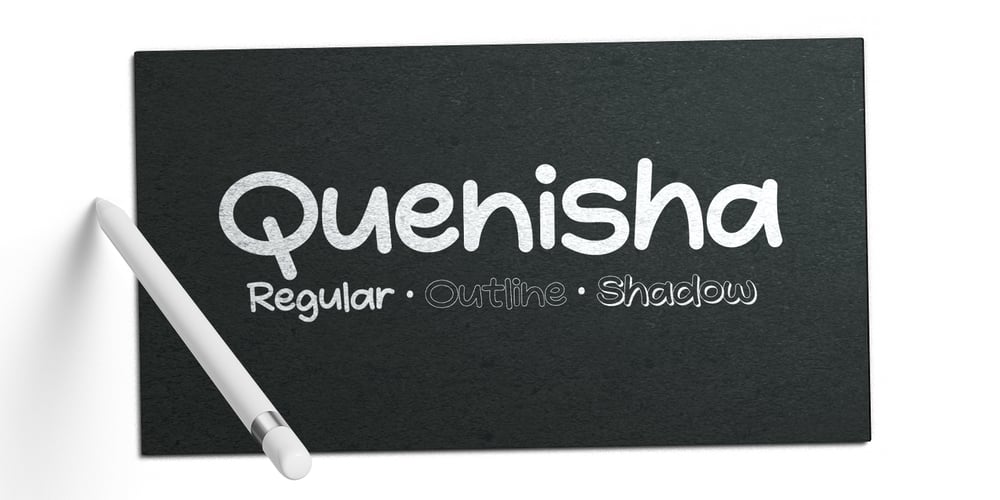
Quenisha Font Family was designed by Fajar Gunawan and published by Fargun Studio. Quenisha contains 3 styles and family package options. Quenisha A stylish handwriting font designed to bring charm to your notes and flair to your display projects. Perfect for headlines, annotations, or adding a spark of creativity—this freshly crafted, texture-rich font is here to elevate your designs with personality and pizzazz.